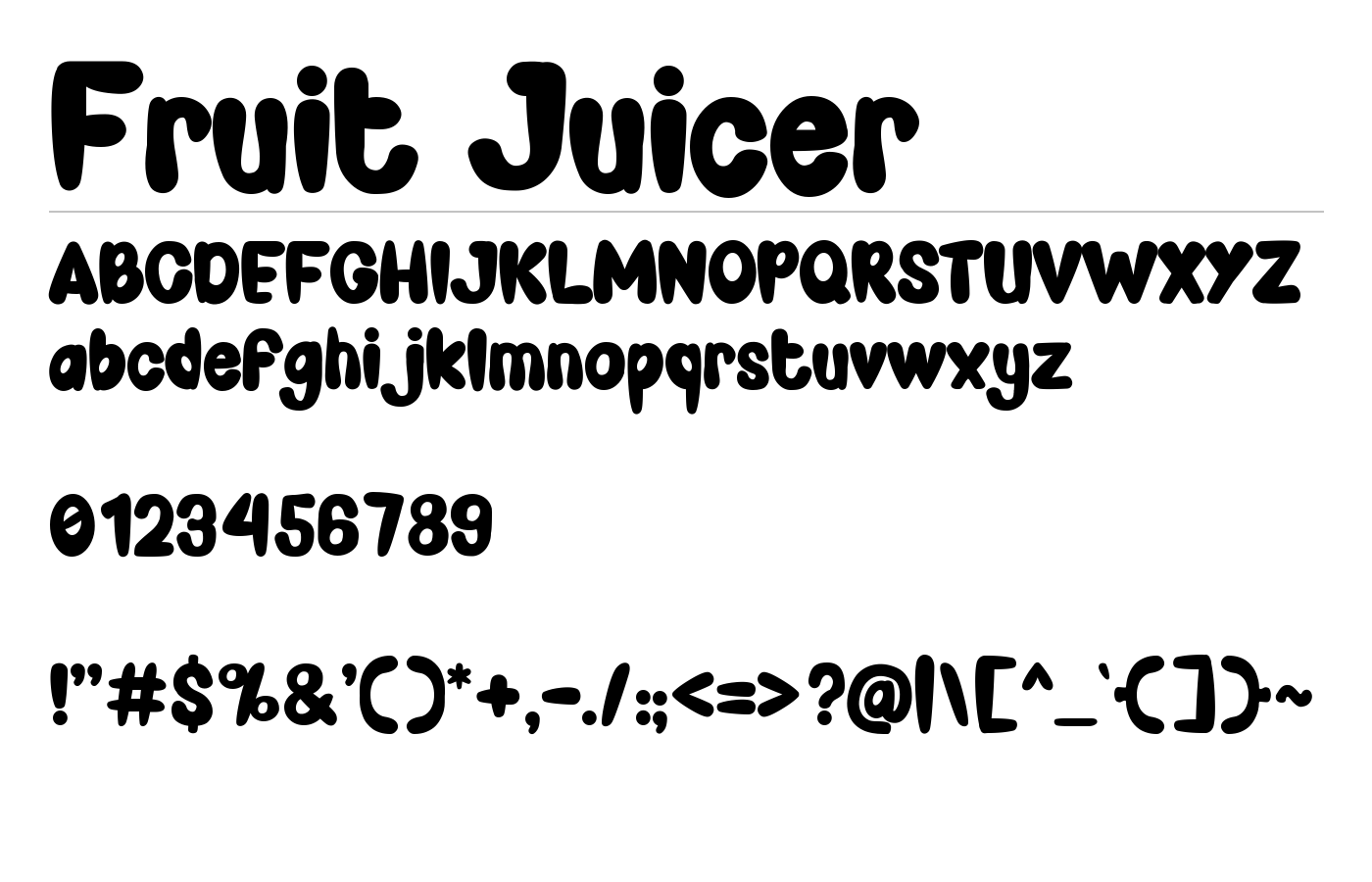
Fruit Juicer is a playful, bold sans serif font with rounded, chunky letterforms that give it a friendly and approachable feel. Its thick strokes and soft edges make it ideal for fun, casual designs like children’s products, party invitations, or vibrant branding. This font works best in headlines or logos where a cheerful and lively tone is desired.
Fruit Juicer Font
About Fruit Juicer Font
| Font family | Fruit Juicer Font |
| Designer | TOKOPRESS Team |